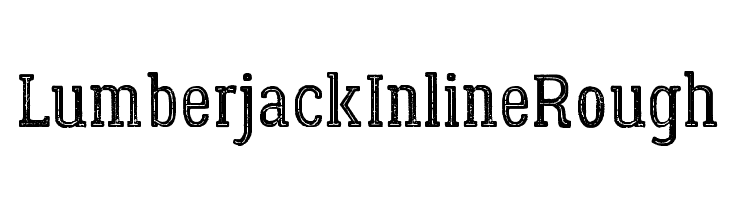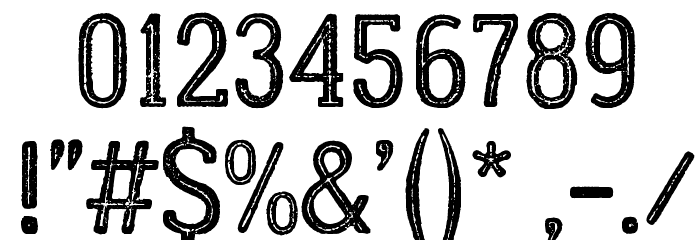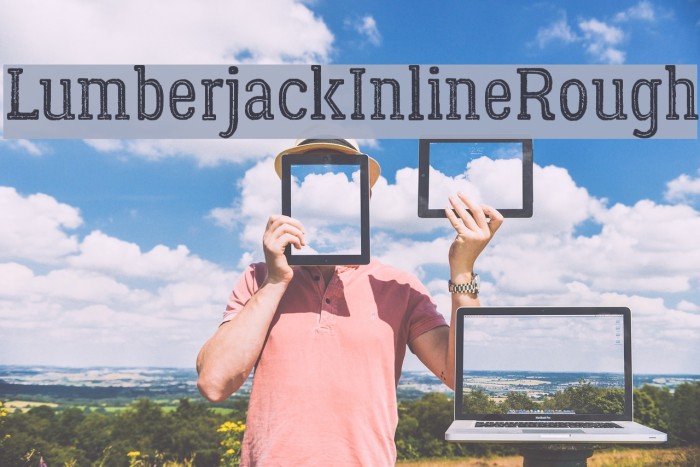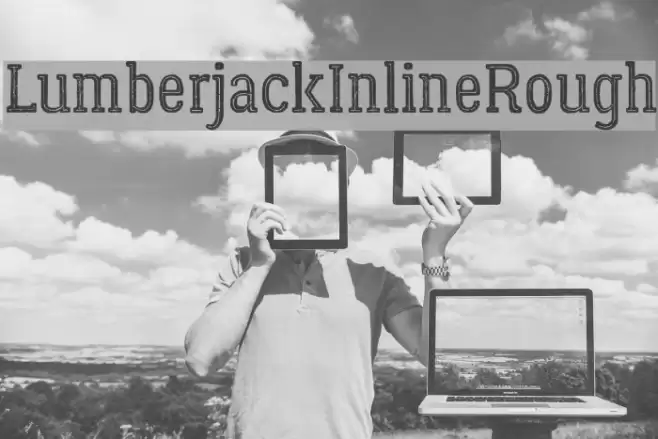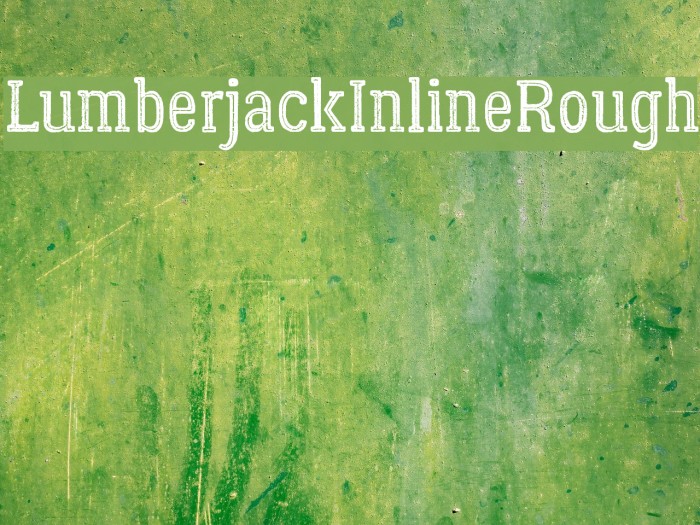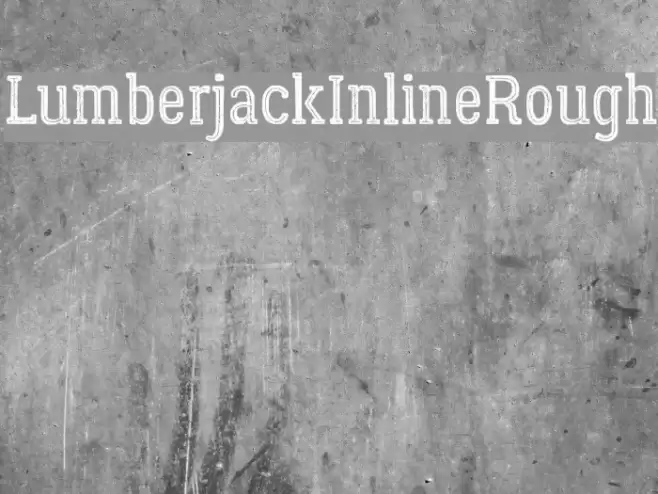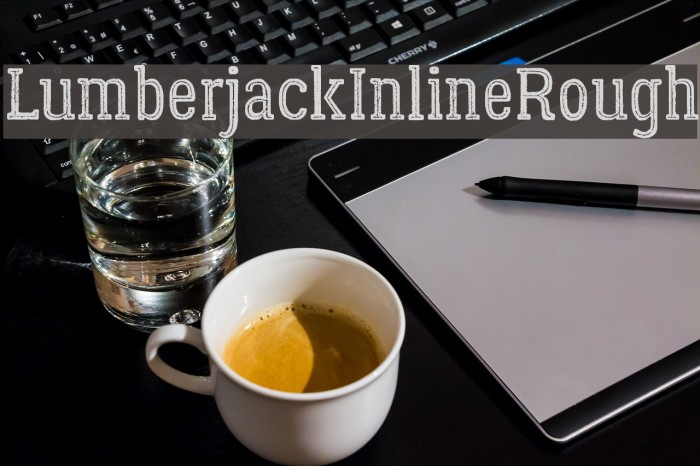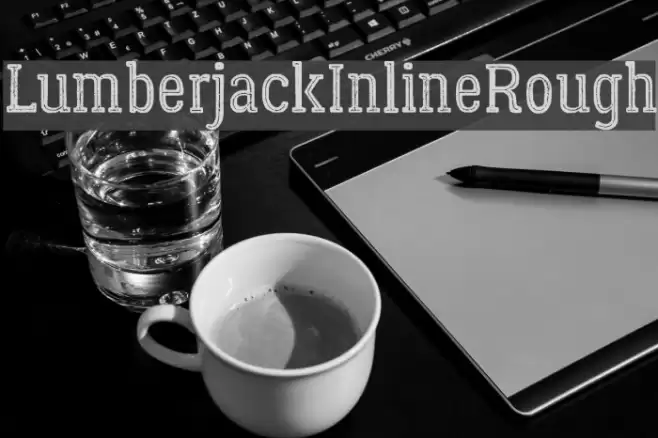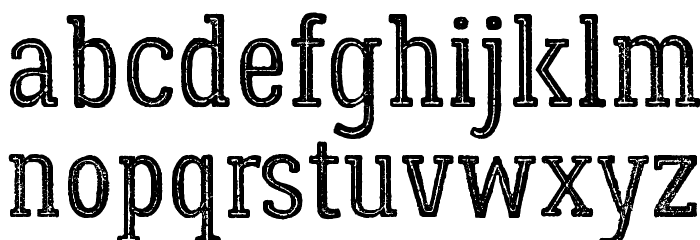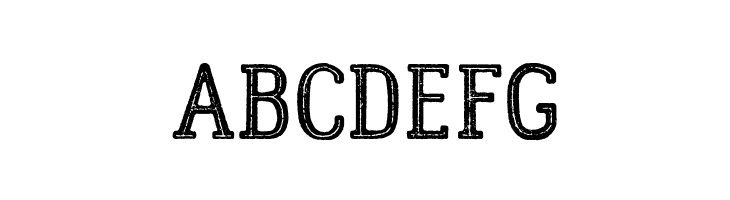
LumberjackInlineRough Font
This font features a rugged, textured appearance with an inline style that gives it a handcrafted, vintage feel. The uppercase and lowercase letters maintain a consistent height and width, creating a balanced look. The numbers and special characters follow the same design ethos, ensuring uniformity across all glyphs. The rough edges and distressed texture add character, making it ideal for projects that require a rustic or artisanal touch. The inline detail enhances the visual interest without compromising readability, making it suitable for both display and decorative purposes.
A rugged, textured font with an inline style and vintage appeal.
• Proposed Projects: Ideal for branding, packaging, posters, and any project seeking a rustic or handcrafted aesthetic.
• Overall Style: Vintage
• Use Case: Headlines, Logos, Posters